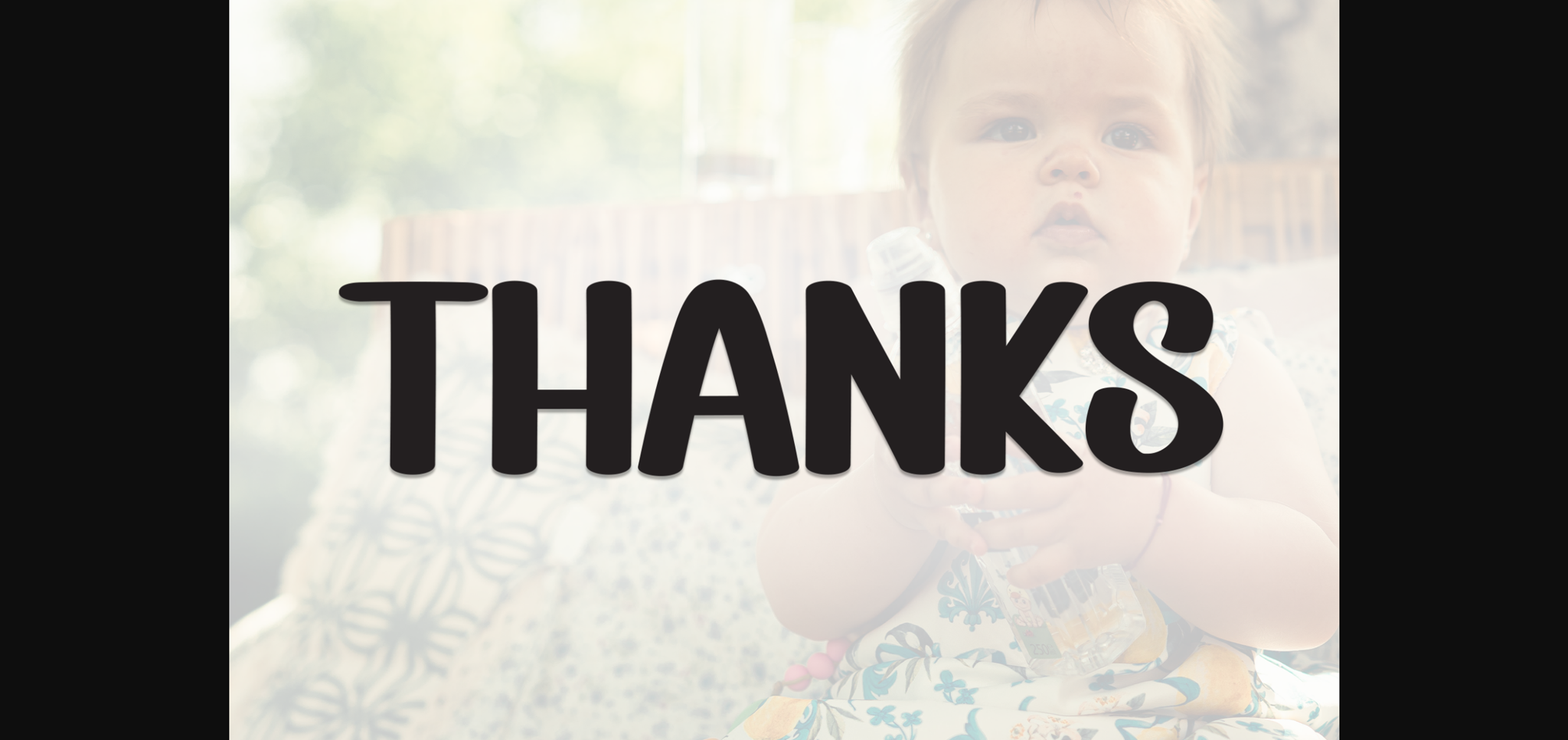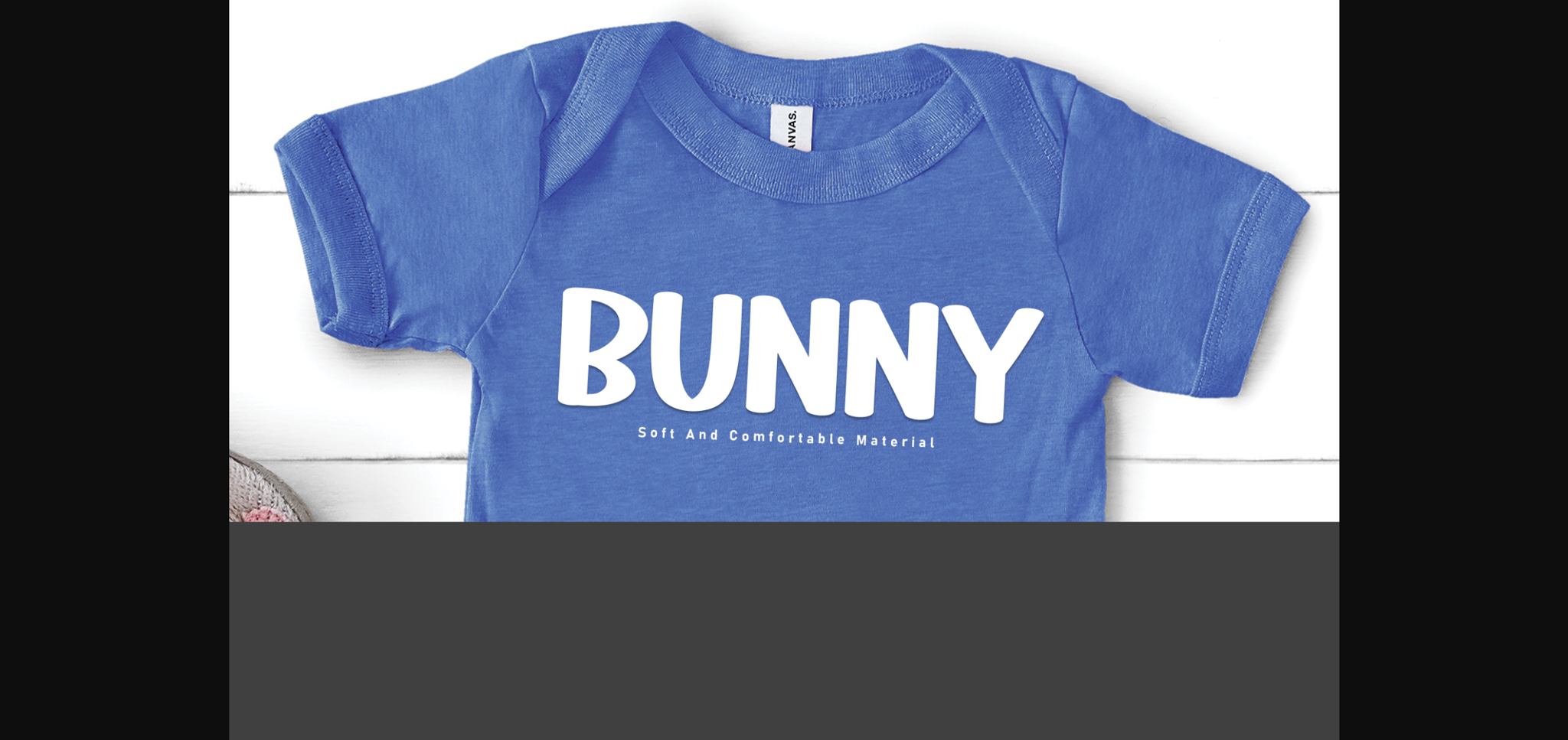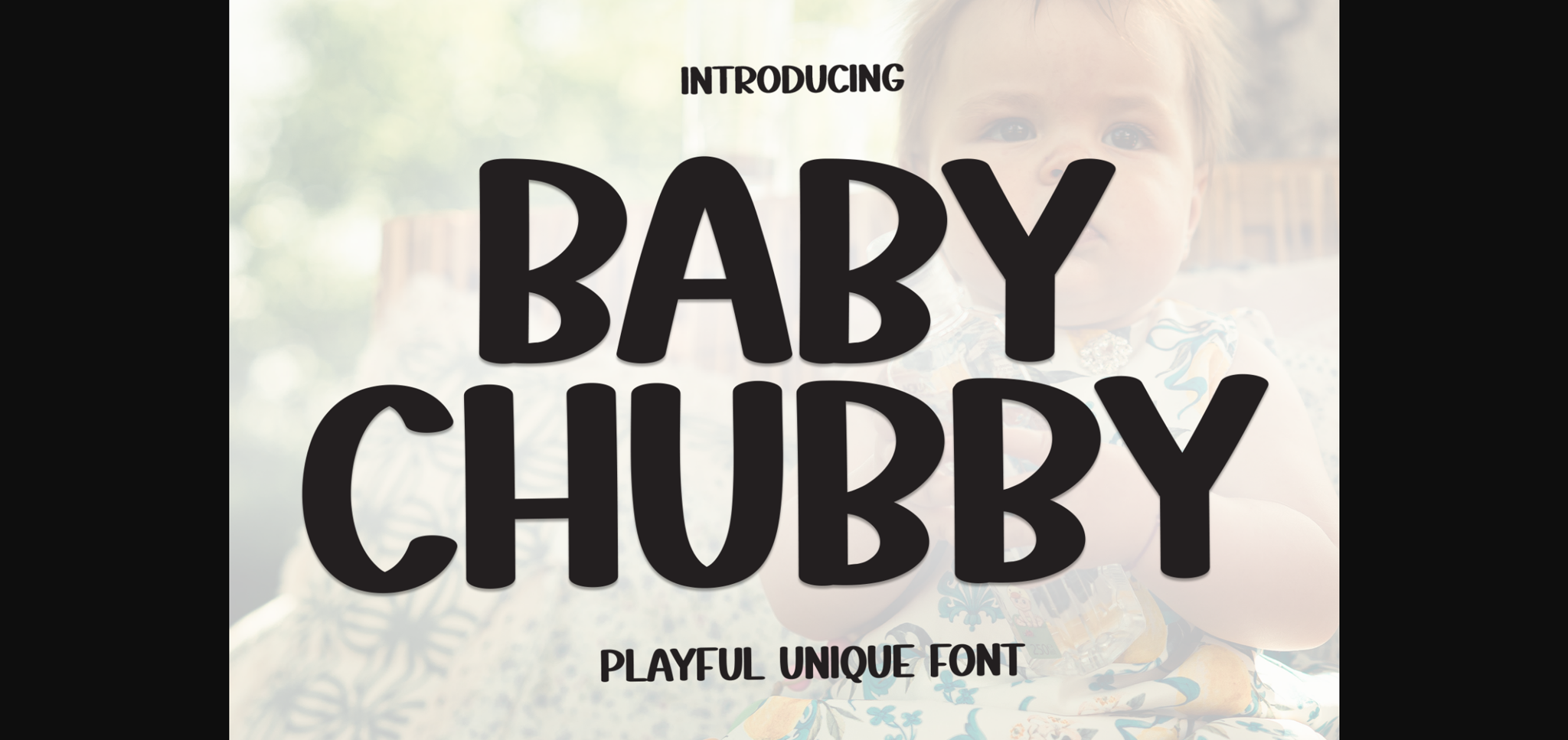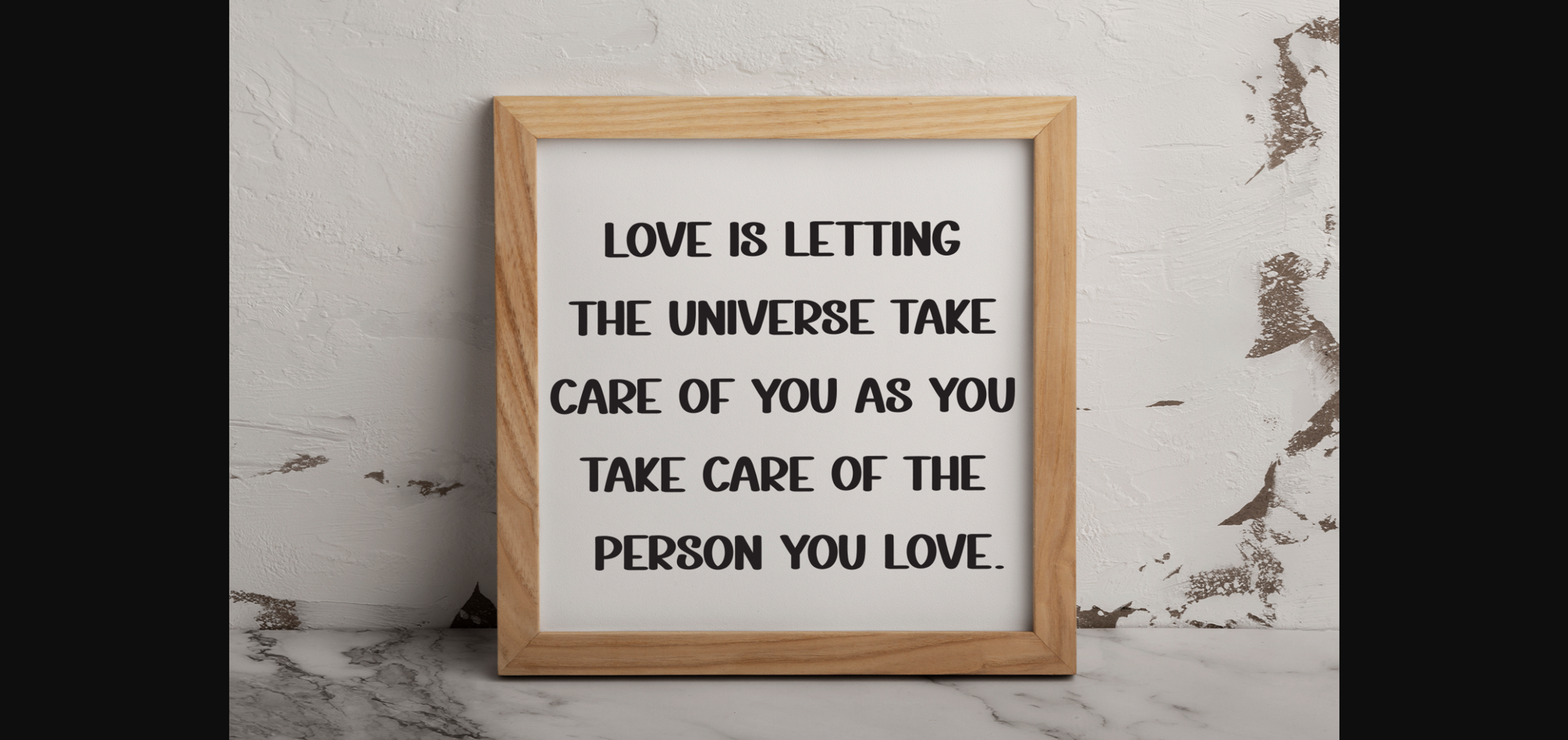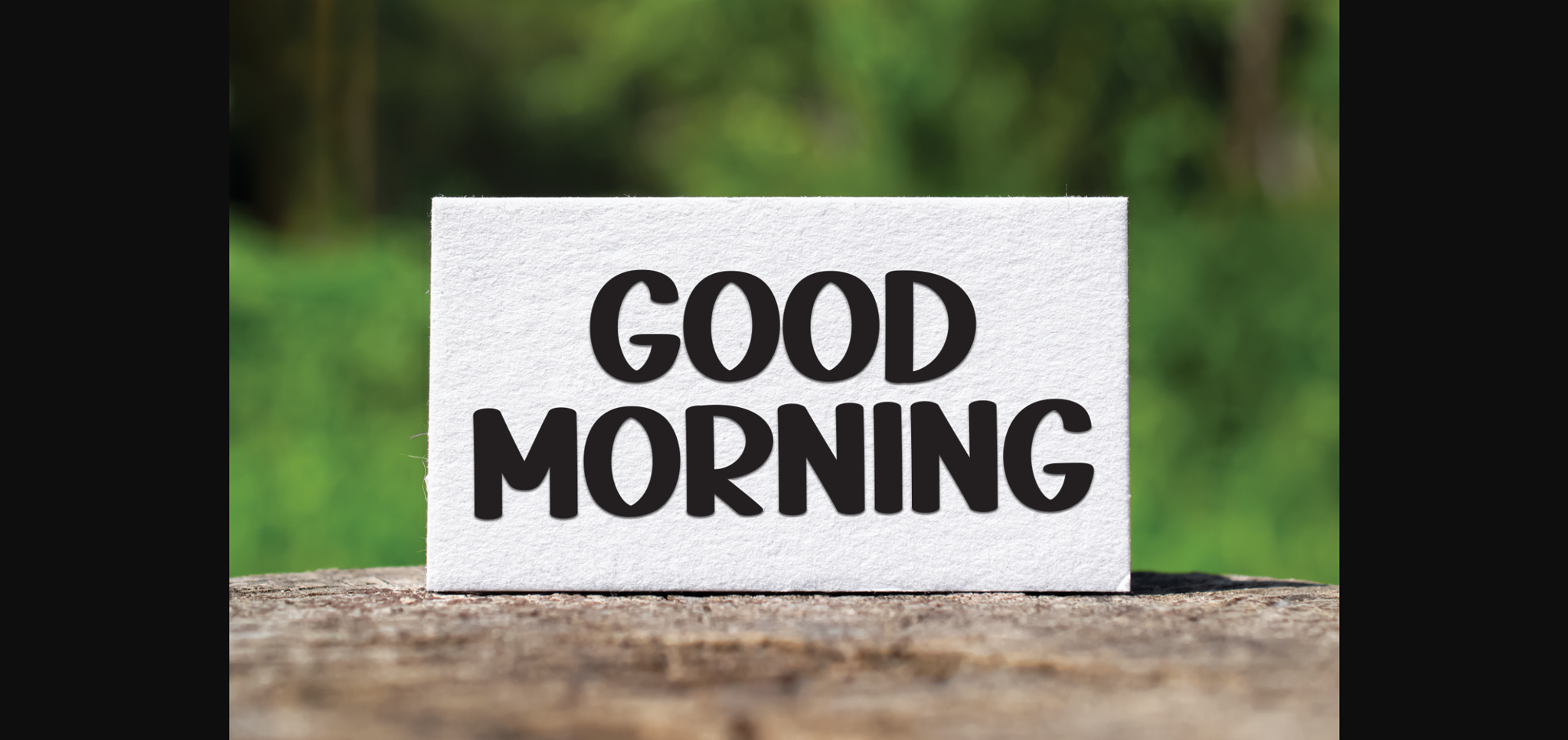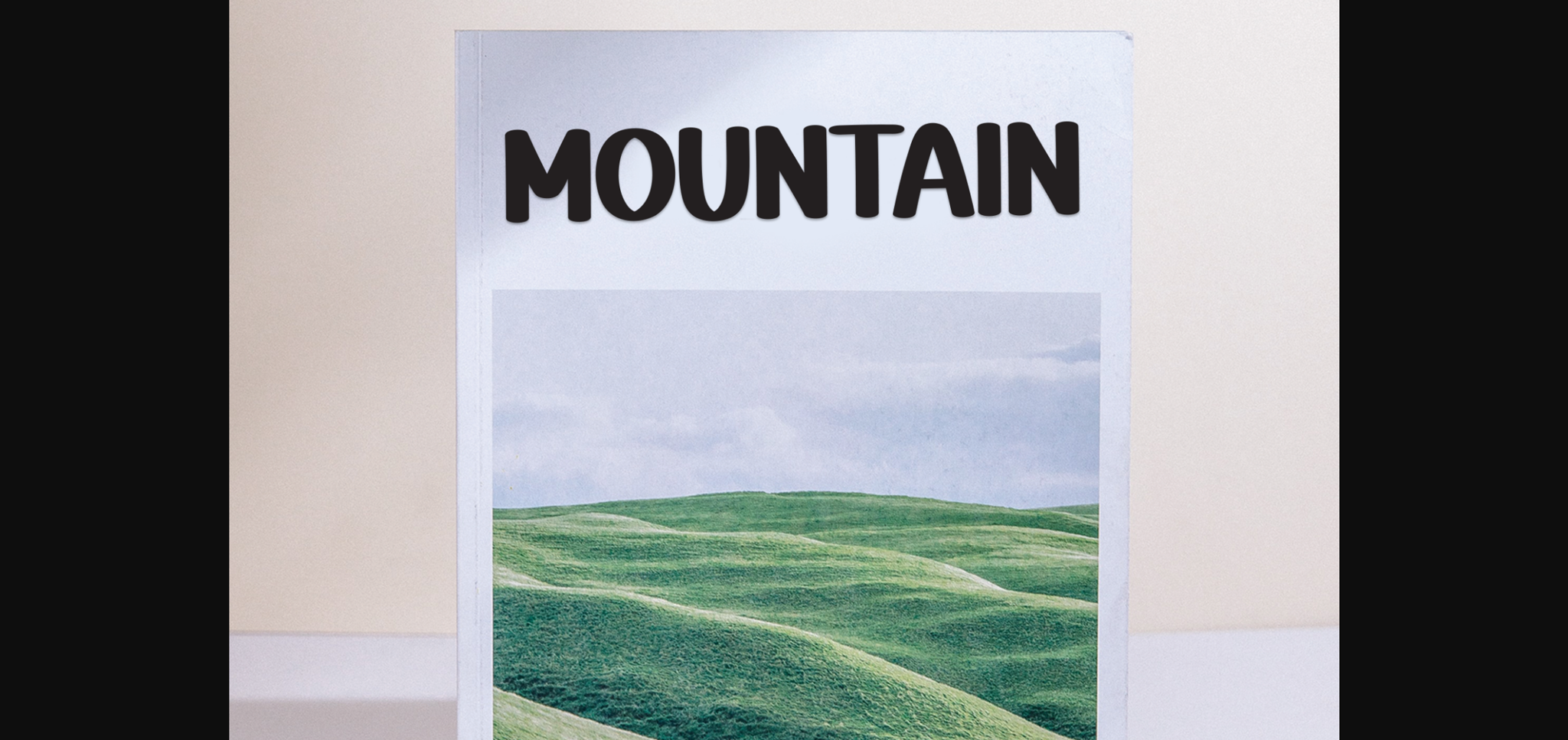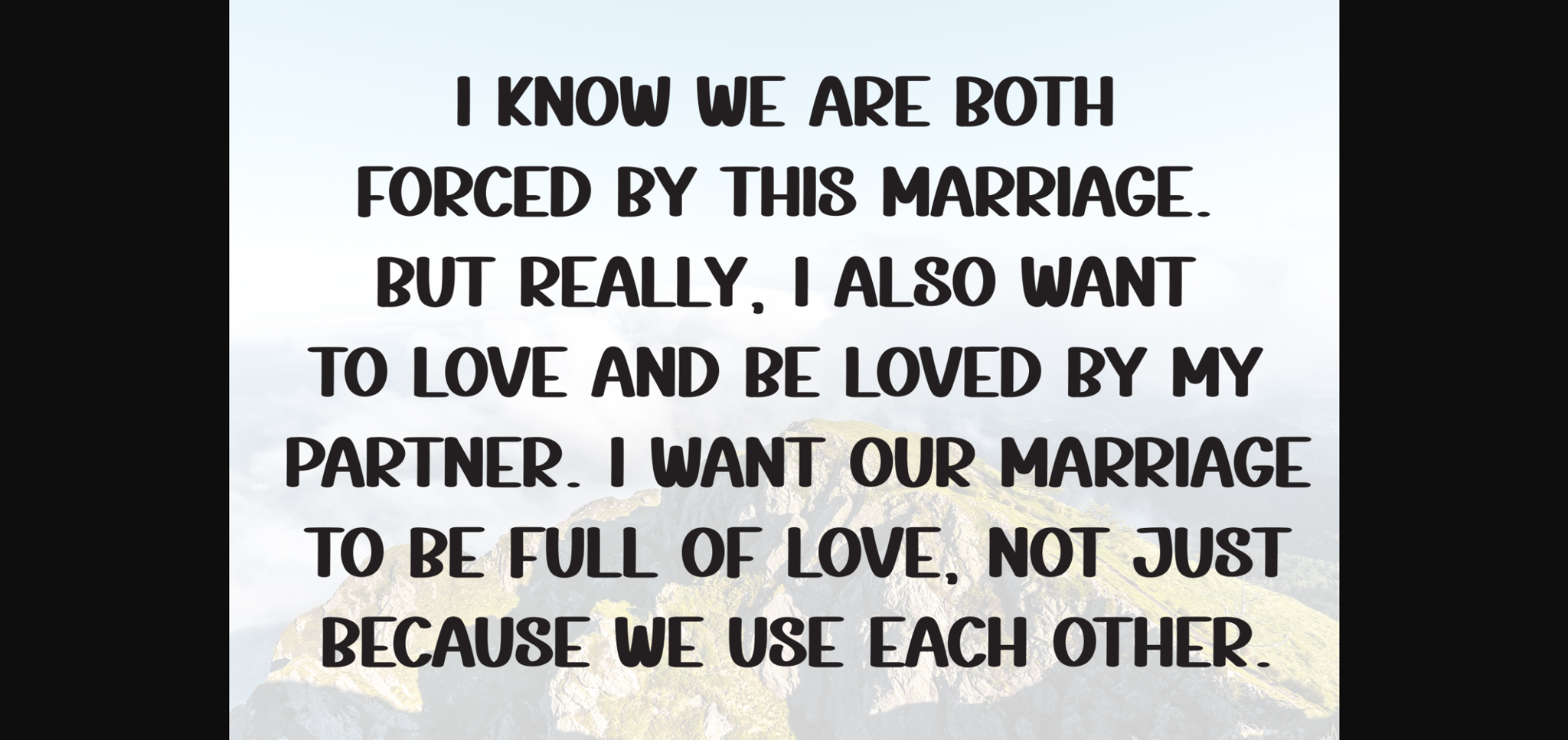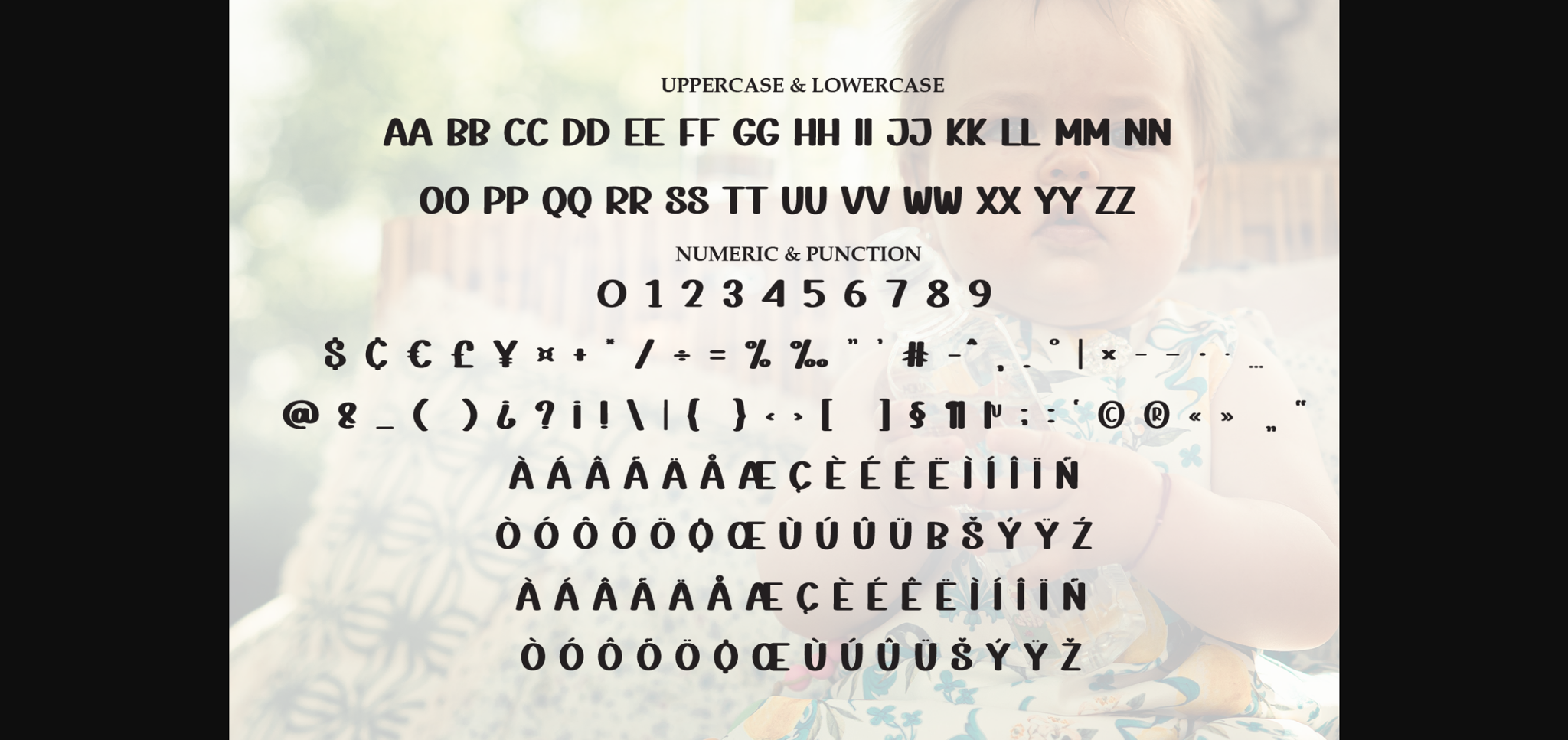
HomeSans Serif FontsBaby Chubby Font Sans Serif Fonts Baby Chubby Font FacebookXPinterestWhatsApp 1 of 10 ... Baby Chubby Font Poster 2... Baby Chubby Font Poster 3... Baby Chubby Font Poster 4... Baby Chubby Font Poster 5... Baby Chubby Font Poster 6... Baby Chubby Font Poster 7... Baby Chubby Font Poster 8... Baby Chubby Font Poster 9... Baby Chubby Font Poster 10... About Baby Chubby Font Baby Chubby is a fun and versatile sans-serif font. Whether you’re using it for crafting, digital designing, presentations, or greeting card making, it’s perfect! DOWNLOAD NOW People also explored Single Font Dillnation Font Bohabey Font Whenesday Font Valva Font Whalebone Dudley Font Nadheva Font Pinkbird Font 312 0 TagsBaby Chubby Font Previous articlePearl FontNext articleSunday Grinch Font LEAVE A REPLY Cancel reply Comment: Please enter your comment! Name:* Please enter your name here Email:* You have entered an incorrect email address! Please enter your email address here Website: Save my name, email, and website in this browser for the next time I comment. Personal Use Free Breather Personal Use Free Read more about this font Awkward Personal Use Free Read more about this font Deco Neue Wilde Personal Use Free Read more about this font Lost Treasure Personal Use Free Read more about this font BLOG Using Fonts in Digital Marketing: Tips to Strengthen Your Brand Identity In the realm of digital marketing, every visual element plays a crucial role in shaping a brand's identity, and fonts are no exception. The... 5 Fonts That Will Dominate Design Trends in 2026 Top 10 Handwritten Fonts That Elevate Your Designs Fonts That Capture the Spirit of New York City